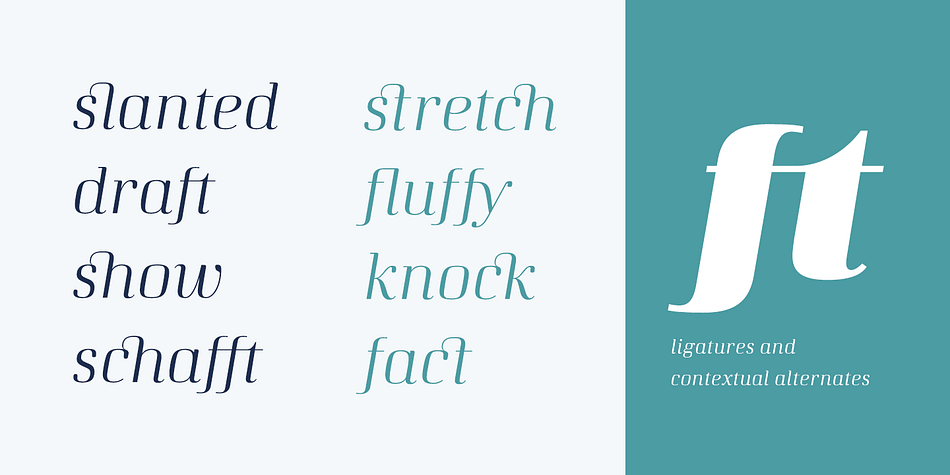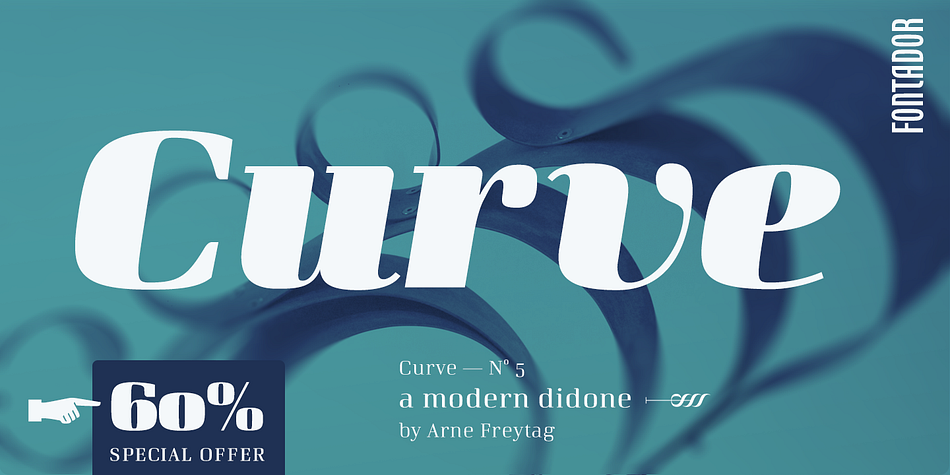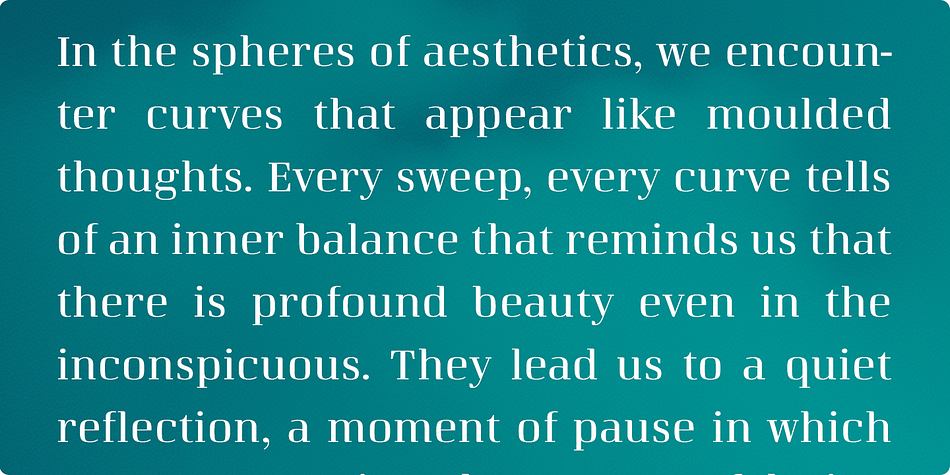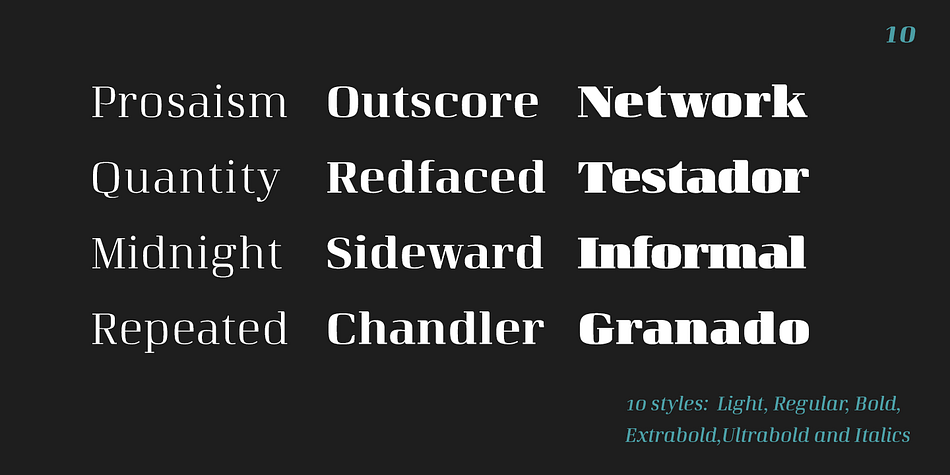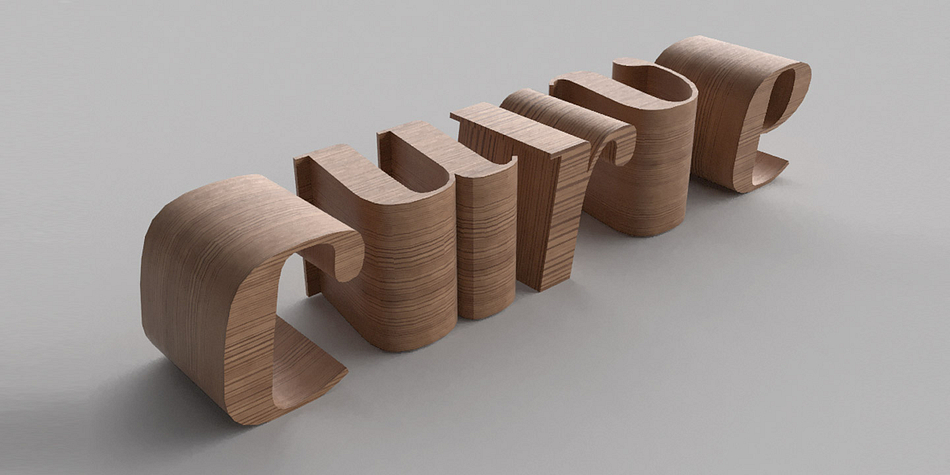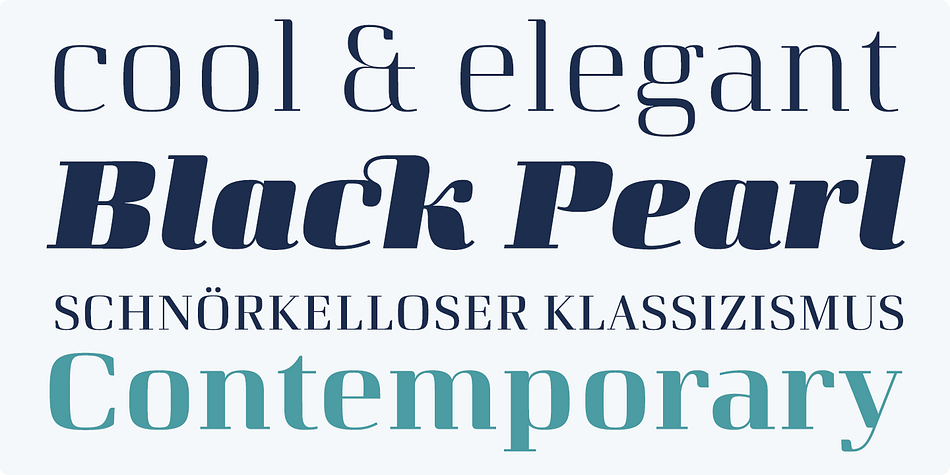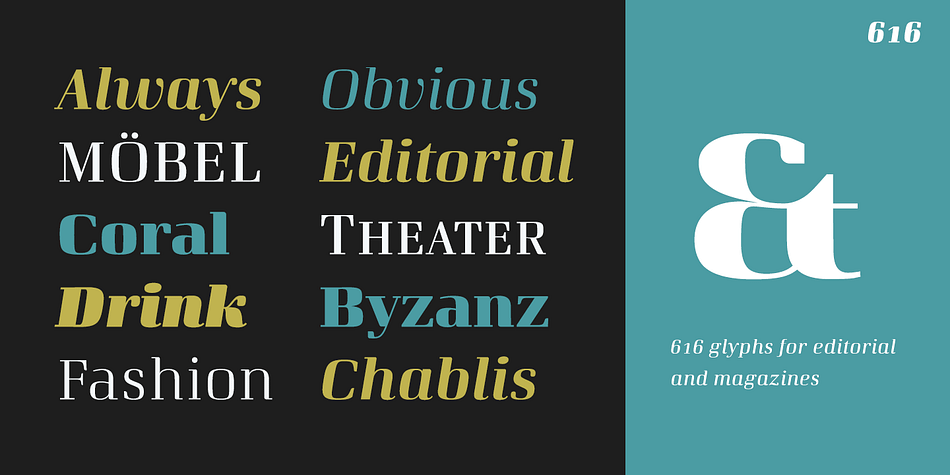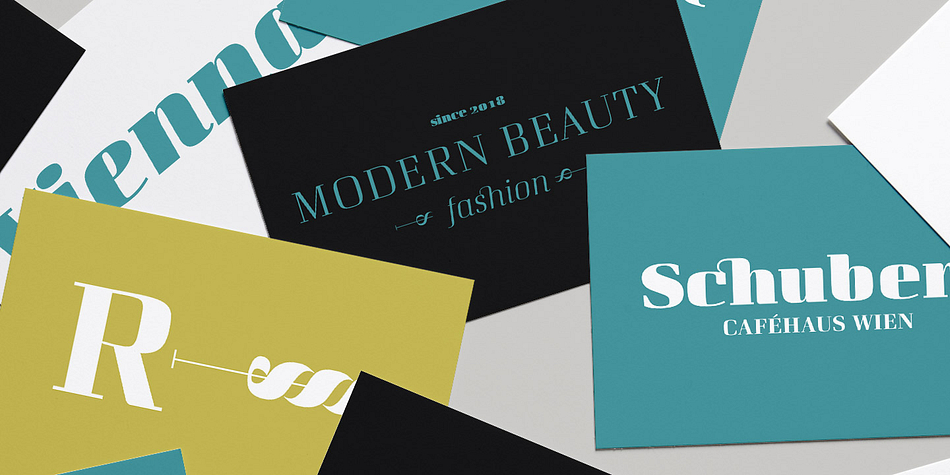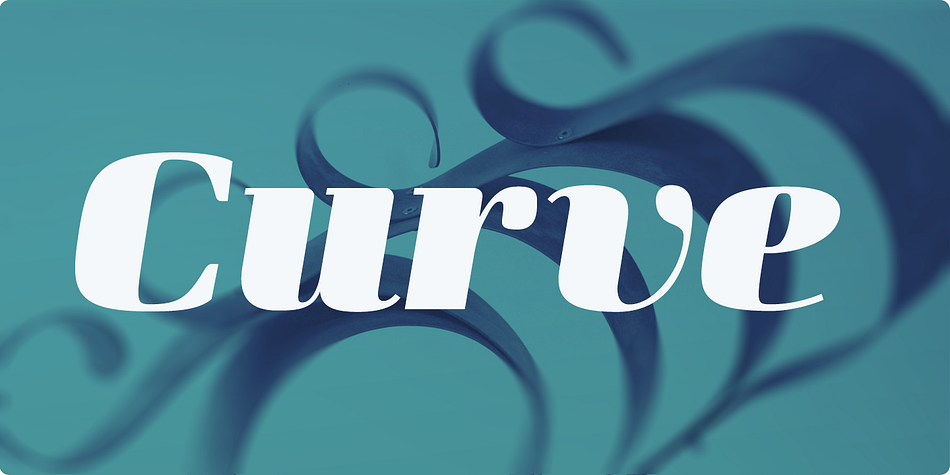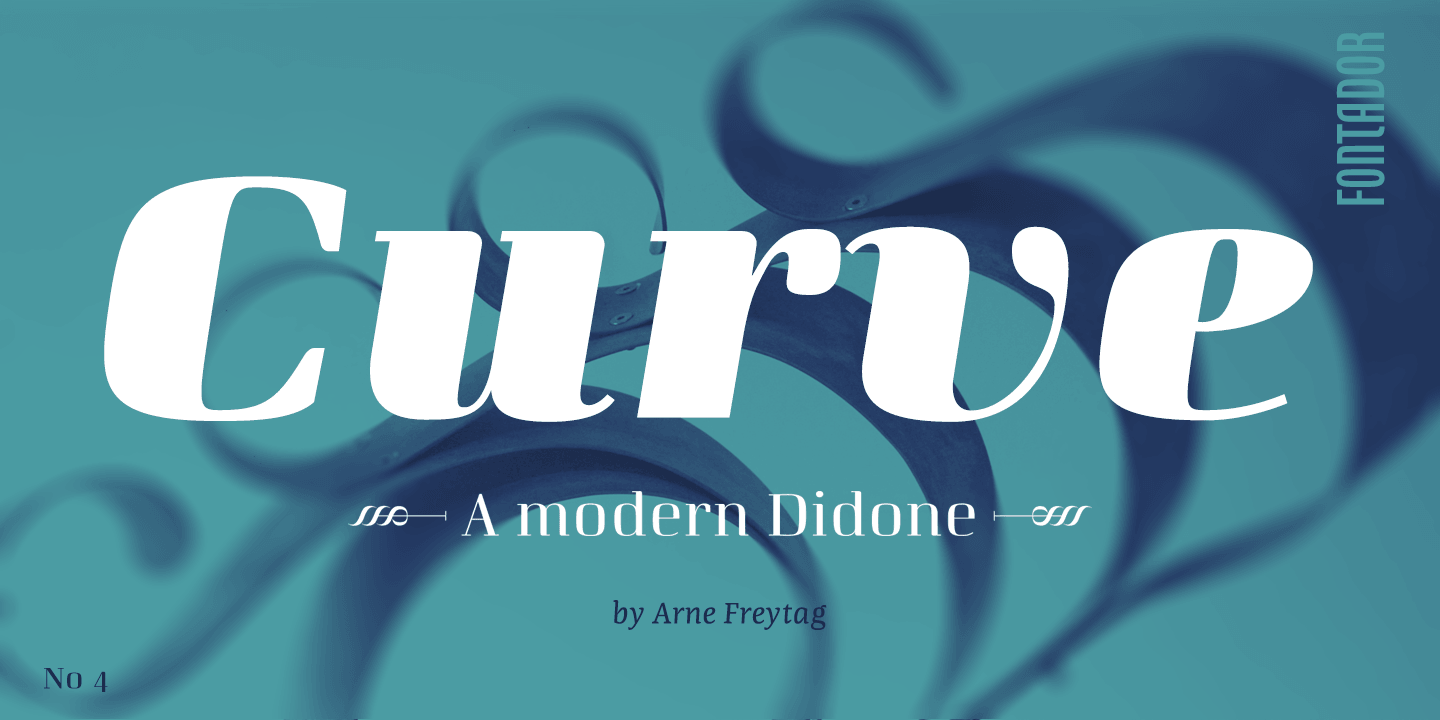
Designed by Arne Freytag, Curve is a display serif font family. This typeface has ten styles and was published by Fontador.
Curve is a modern neo-classical typeface family with some features of the Didone genre, but especially designed for contemporary typography.
A large x-height not only creates space in the letters for extra-bold styles, but also lends Curve an open and generous character in the more narrow and semi-bold versions.
It has 616 glyphs with small caps, numbers and ligatures in 10 weights.
Curve is a contemporary serif typeface, special for logos, brands, magazines and editorial and for setting trends in fashion and design.